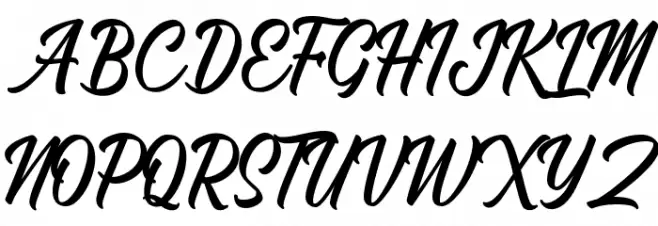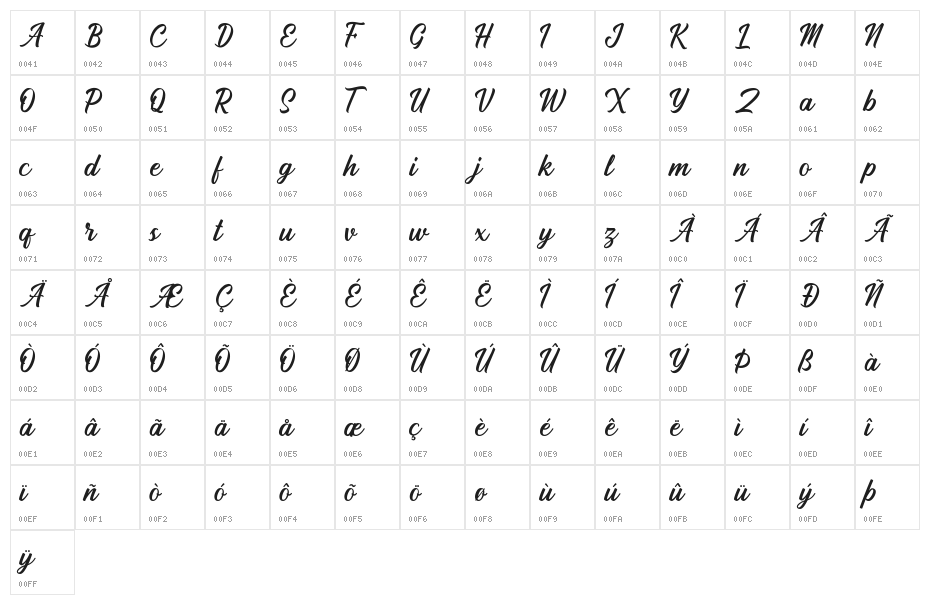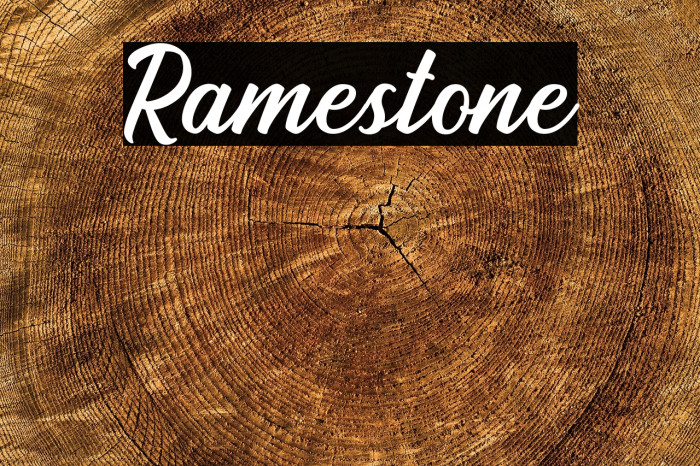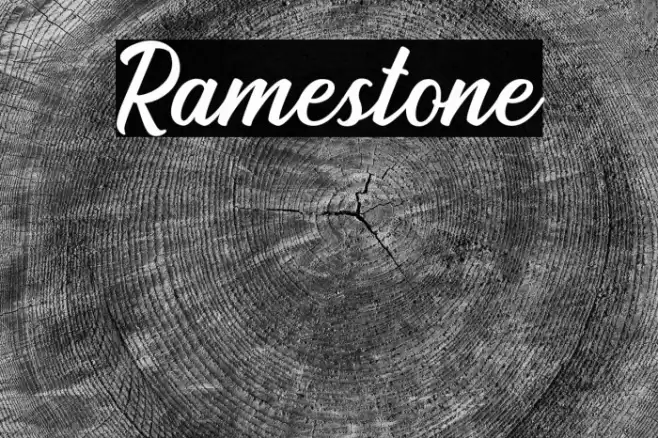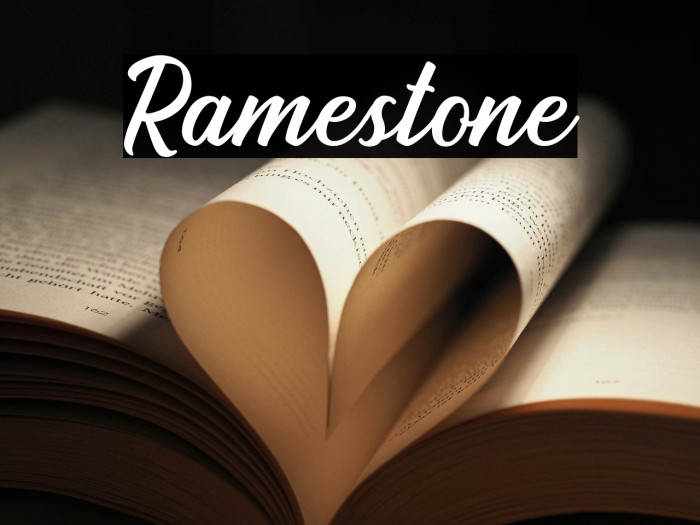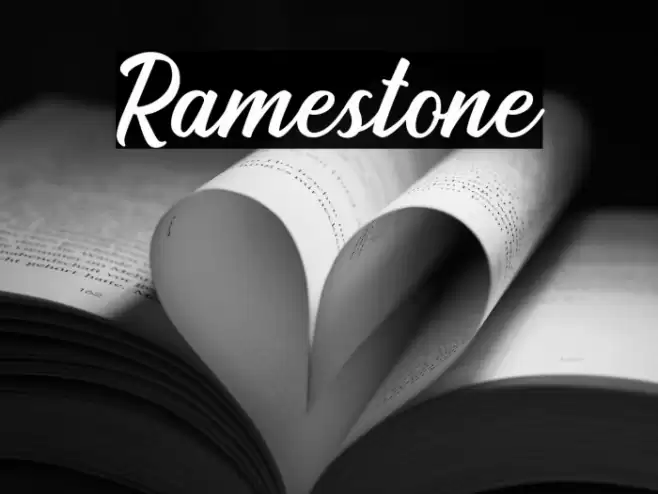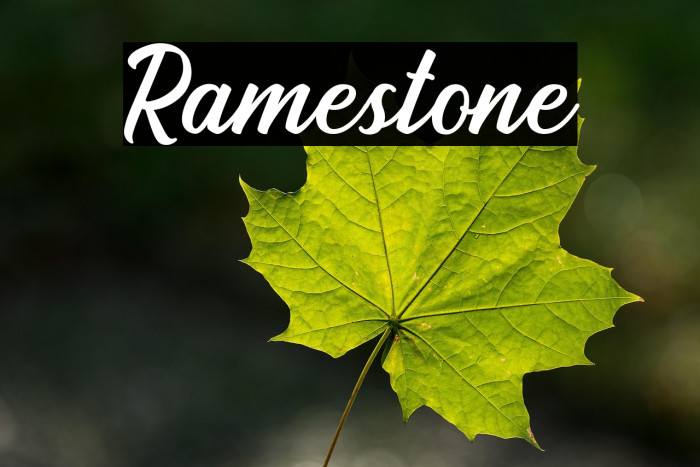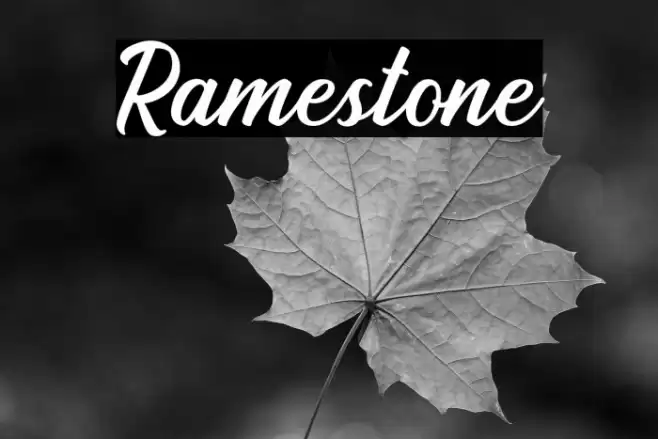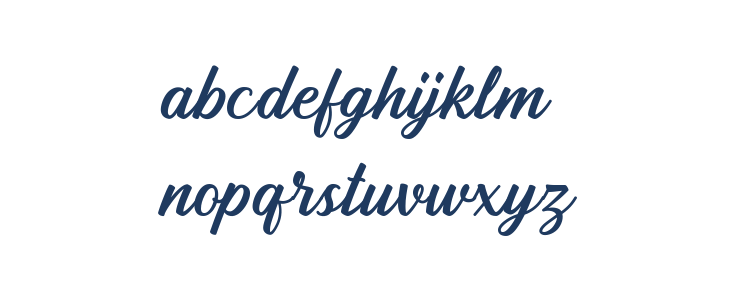
Ramestone Font
Ramestone Description
This font features a dynamic and flowing script style, characterized by its elegant and cursive letterforms. The strokes are smooth and connected, giving a sense of fluidity and movement. The uppercase letters are bold and prominent, while the lowercase letters maintain a consistent flow with subtle variations in stroke width. The font exudes a sense of sophistication and grace, making it suitable for formal and decorative applications. Its design is reminiscent of traditional calligraphy, yet it maintains a modern touch, making it versatile for various design needs.
Overall StyleElegant, Modern
Use CaseHeadlines, Logos, Invitations
Proposed ProjectsIdeal for wedding invitations, elegant branding, greeting cards, and decorative headings.